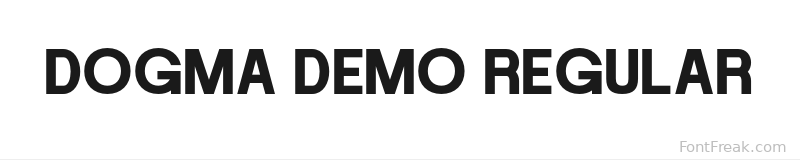
DOGMA DEMO Regular
DOGMA DEMO Regular by MJType is a striking sans-serif typeface that embodies modern elegance with its clean lines and balanced proportions. This font features a medium stroke weight, providing clarity and readability, which makes it an excellent choice for various design projects. The character spacing is thoughtfully calibrated, creating a harmonious flow that enhances legibility while maintaining a contemporary aesthetic. The overall visual appeal is characterized by its minimalistic design, devoid of unnecessary decorative elements, which allows it to adapt seamlessly across different applications.
This versatile font is perfect for a range of use cases. It shines in the world of branding, making it an ideal choice for logo designs and corporate identities that demand a professional appearance. DOGMA DEMO Regular also serves well in editorial designs, such as magazines and brochures, where clear communication is essential. For event planners, this font is suitable for wedding invitations or promotional materials, offering a sophisticated yet approachable feel. Additionally, it can elevate restaurant menus, providing a modern touch that aligns with contemporary dining experiences.
What sets DOGMA DEMO Regular apart is its blend of simplicity and sophistication. This font not only fulfills functional requirements but also adds a touch of modernity to any design. For those interested in elevating their typography, a DOGMA DEMO Regular font free download is a valuable resource that should not be overlooked.